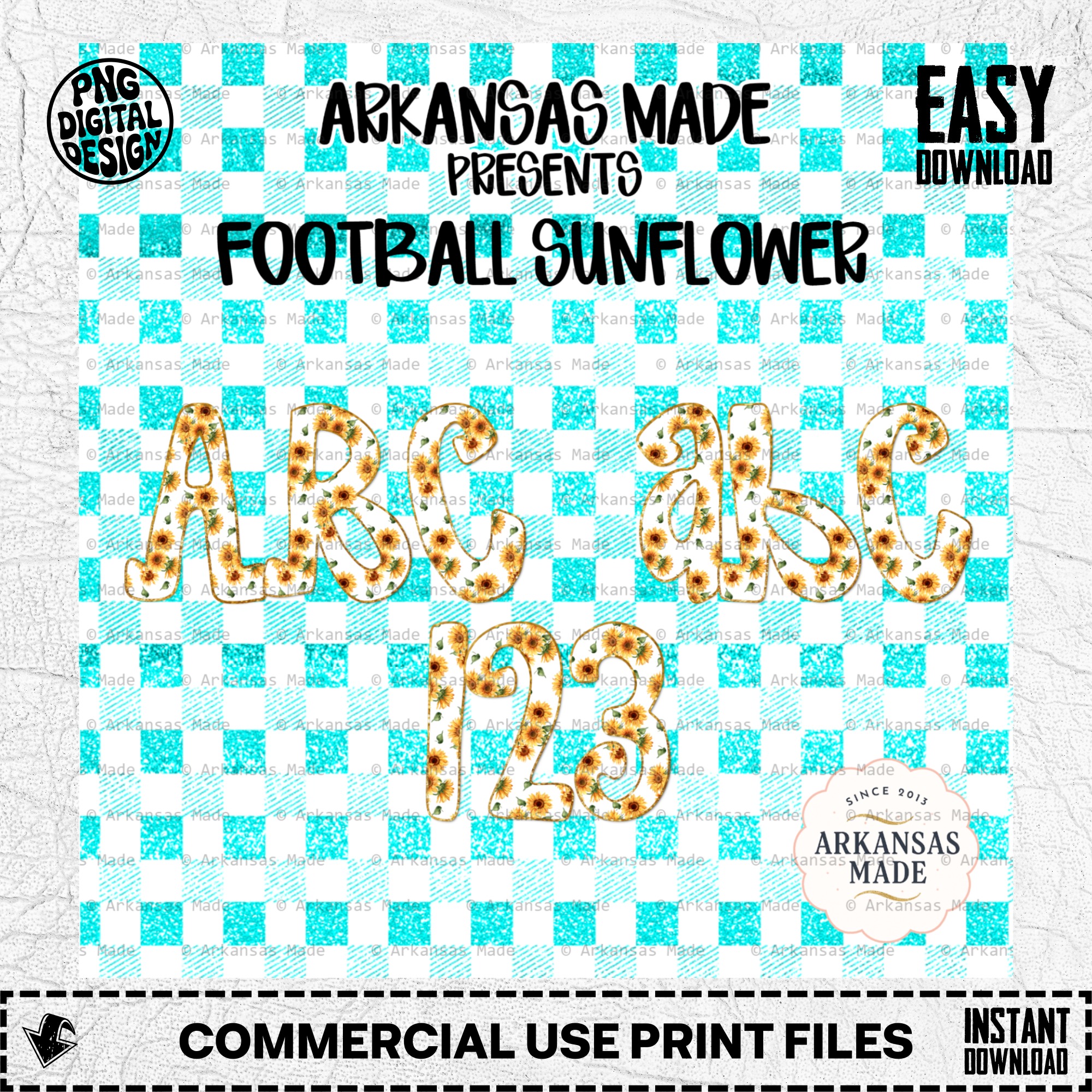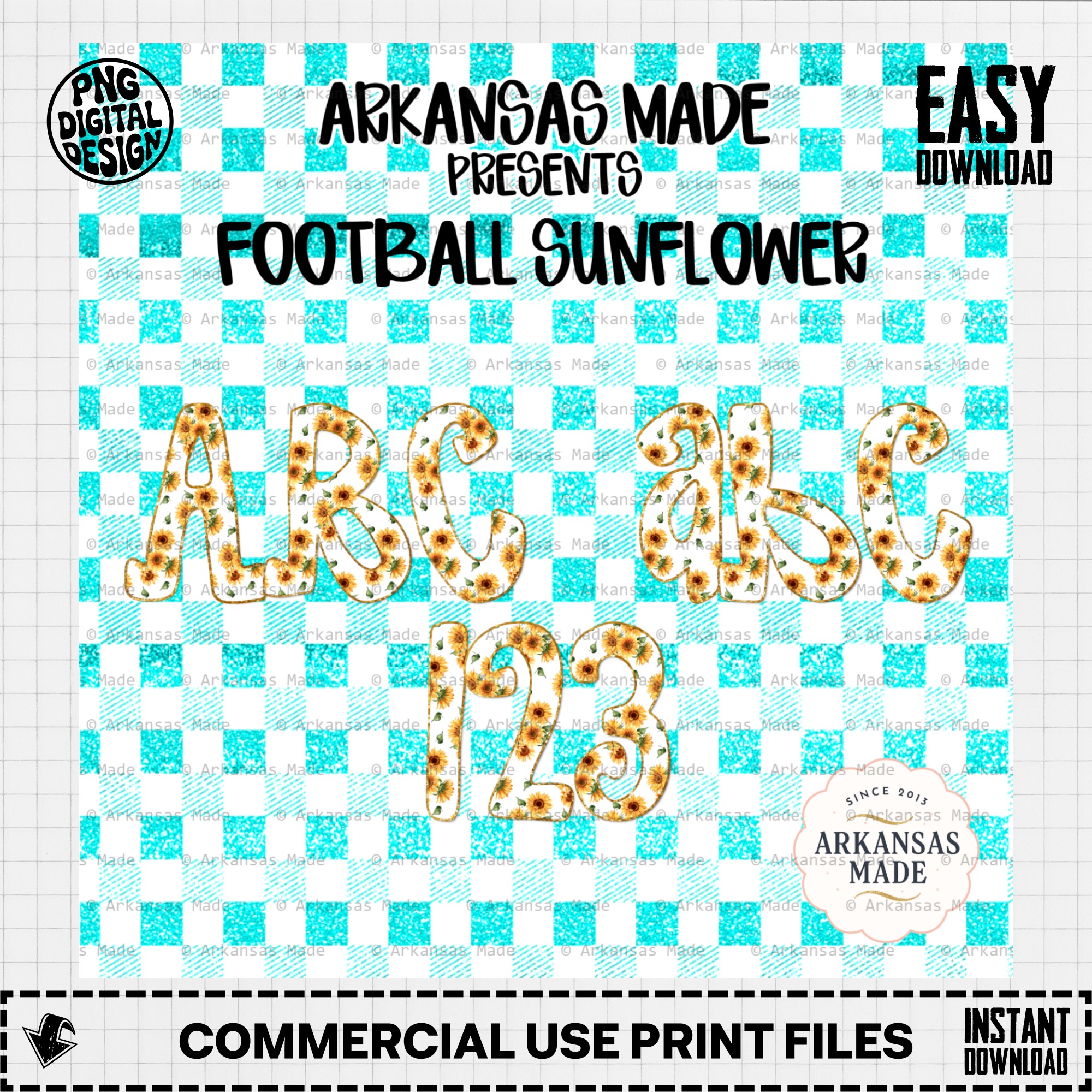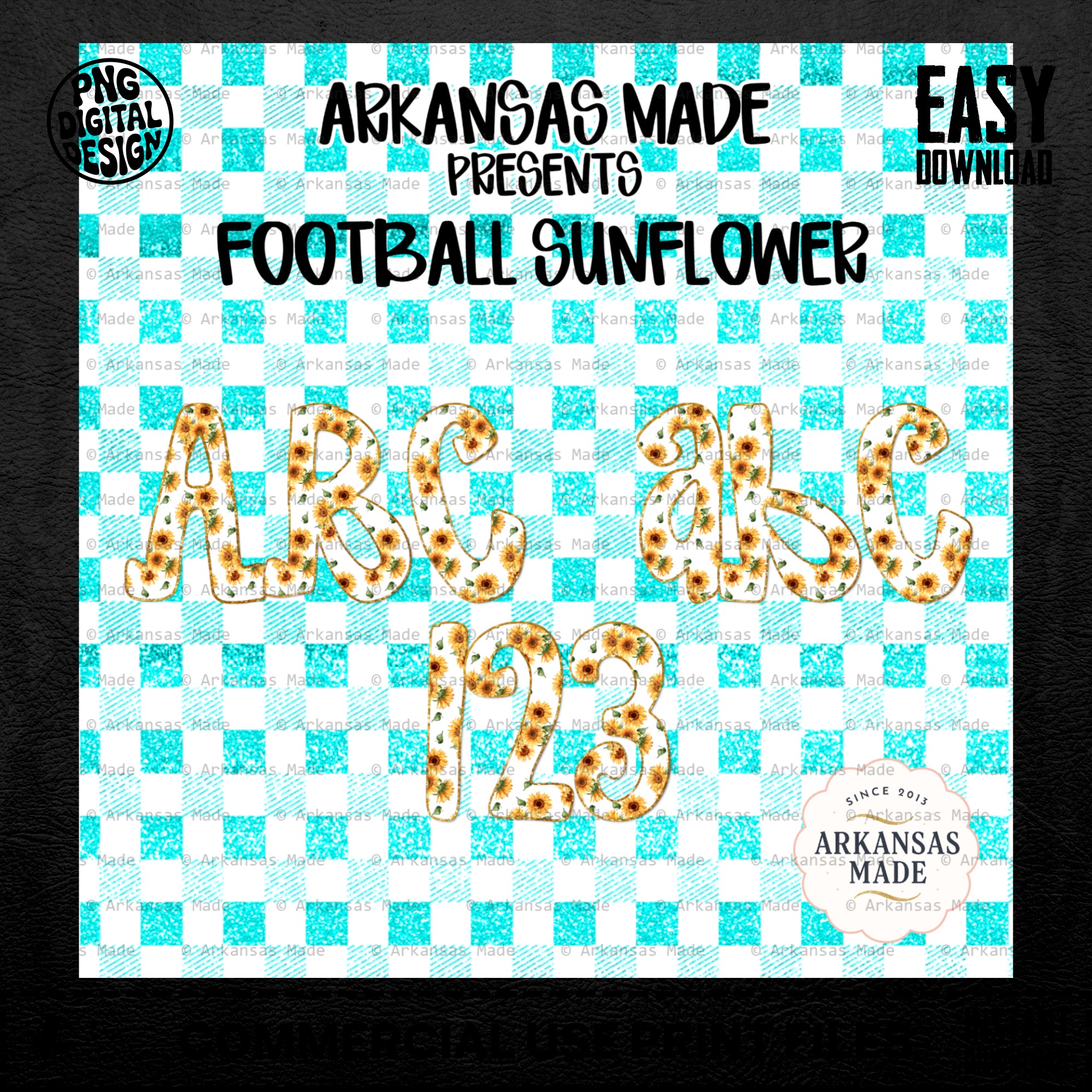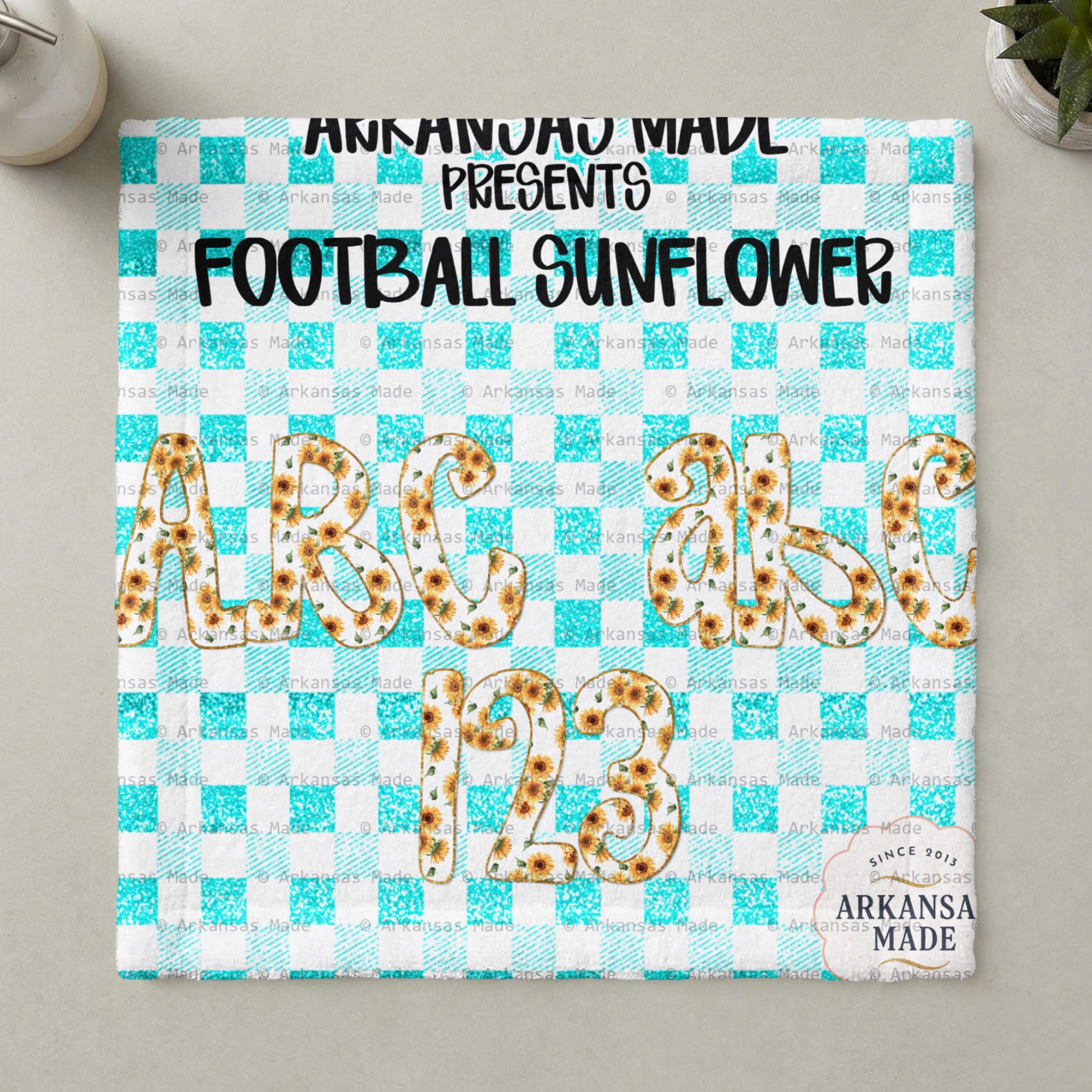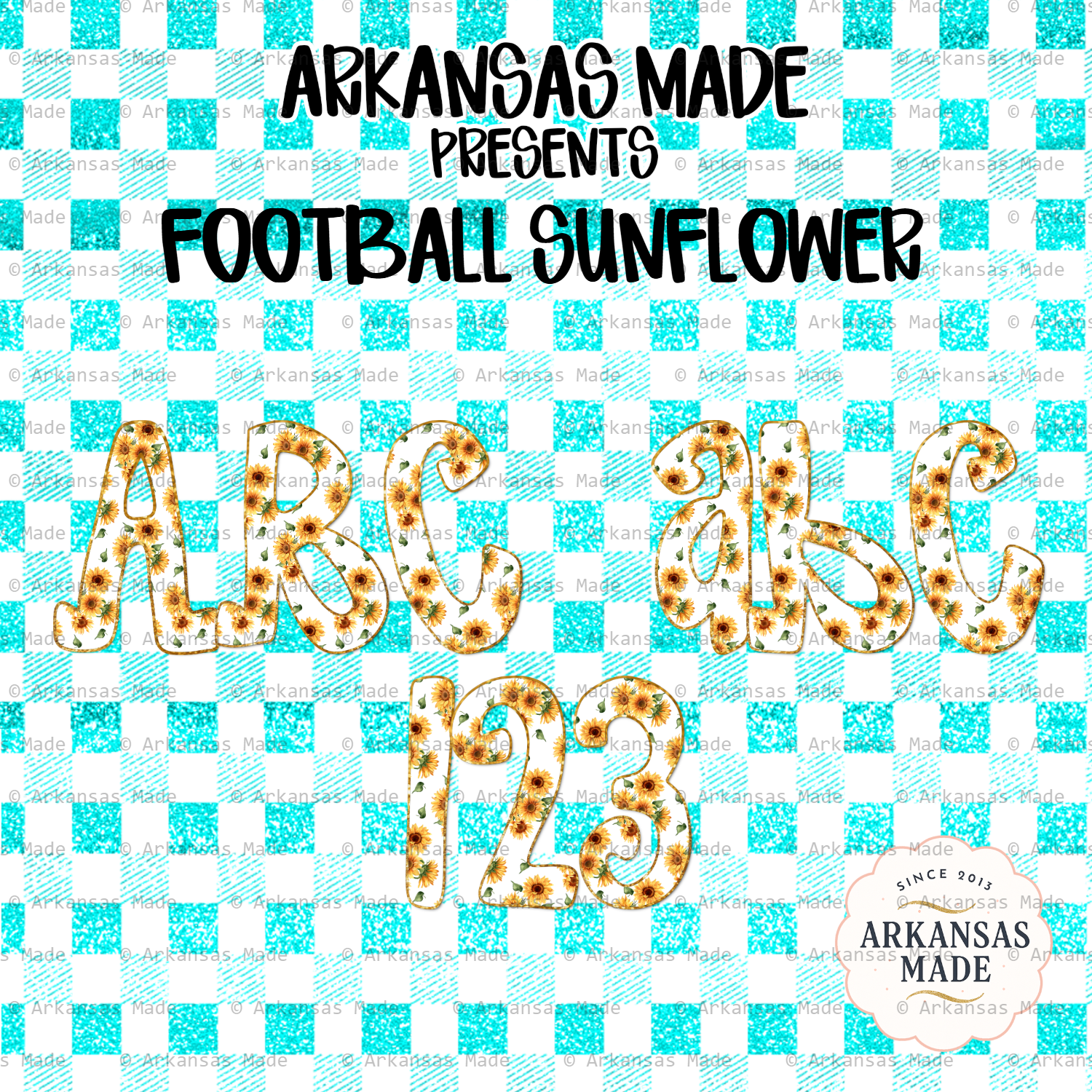
Sunflower Alphabet PNGs, Floral Letters Numbers ABC 123 Digital Alpha Pack, Commercial Use Font, Instant Download Clipart for Crafts &
Unleash your creativity with these vibrant Sunflower Alphabet PNGs, featuring beautiful floral letters and numbers for all your digital projects. This commercial use digital alpha pack is perfect for crafters seeking a rustic, boho, or farmhouse aesthetic. Create stunning personalized gifts, apparel, or home decor. Ideal for custom baby shower items, teacher appreciation, or fall-themed designs, offering endless possibilities for unique creations.